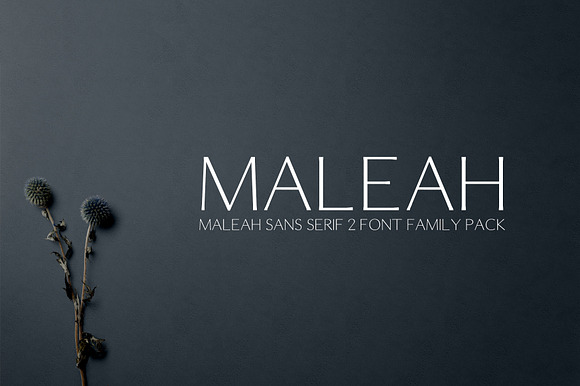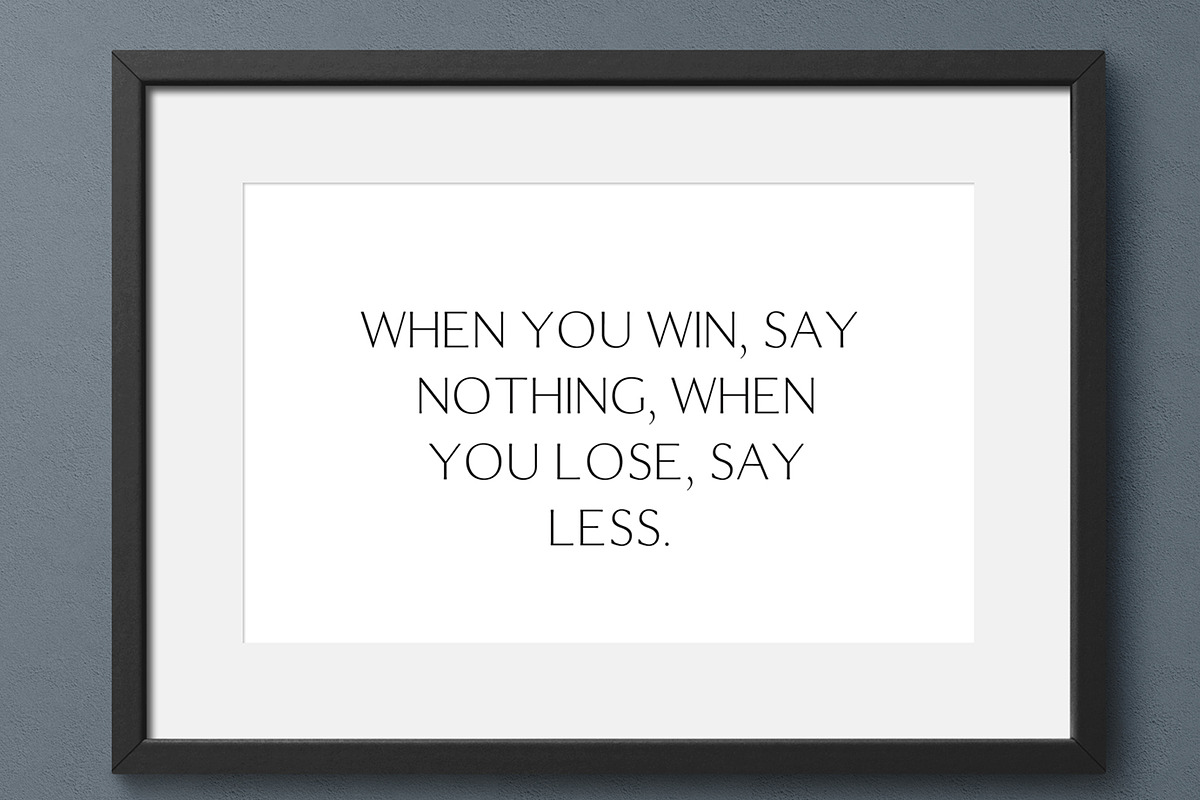
Maleah Sans Serif Fonts Family Pack
Maleah Sans Serif 4 Fonts Family Pack is a modern and stylish serif font collection, perfect for creating eye-catching logos, titles, website designs, and branding materials. It looks stunning when used in all caps with a bit of extra spacing for a sophisticated vibe, or just as lovely in a mix of uppercase and lowercase for a classic touch.
Font Weight: Regular, Thin, Italic, and Bold
Maleah Font Features:
Why Maleah Sans Serif Fonts Family Pack is worth a look
Maleah Sans Serif Fonts Family Pack by Creativetacos fits naturally into Branding, posters, packaging, typography.